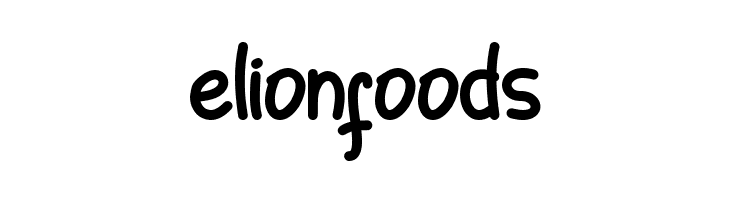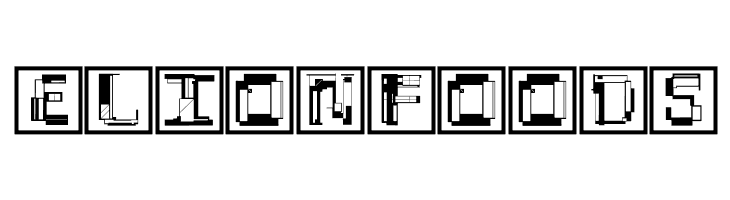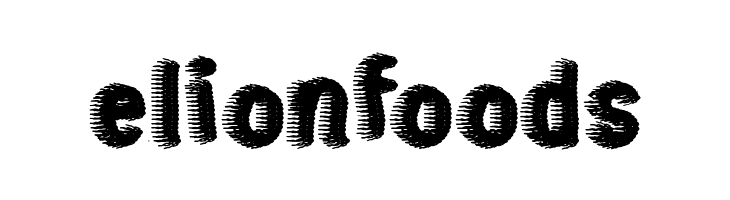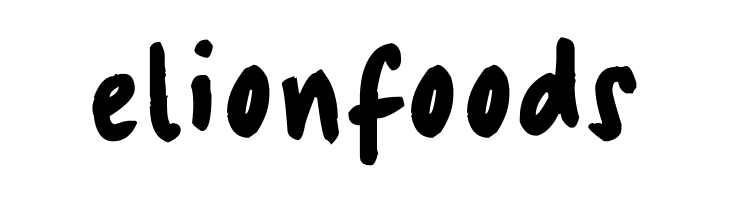
A city skyline-inspired font with characters resembling building silhouettes.
A bold, geometric font with a digital, abstract aesthetic and fragmented design.
A decorative font with surreal and abstract illustrations within each character.
A bold, expressive handwritten font with thick strokes and a playful style.
A bold, textured, hand-drawn style font with a playful and artistic feel.
A bold, textured font with a playful, hand-drawn style.
A dynamic, expressive handwritten font with fluid, cursive letterforms.
A playful, hand-drawn font with bold, rounded characters.
A playful, bold font with rounded, thick strokes and a whimsical flair.
A playful, outlined font with bold, rounded characters.